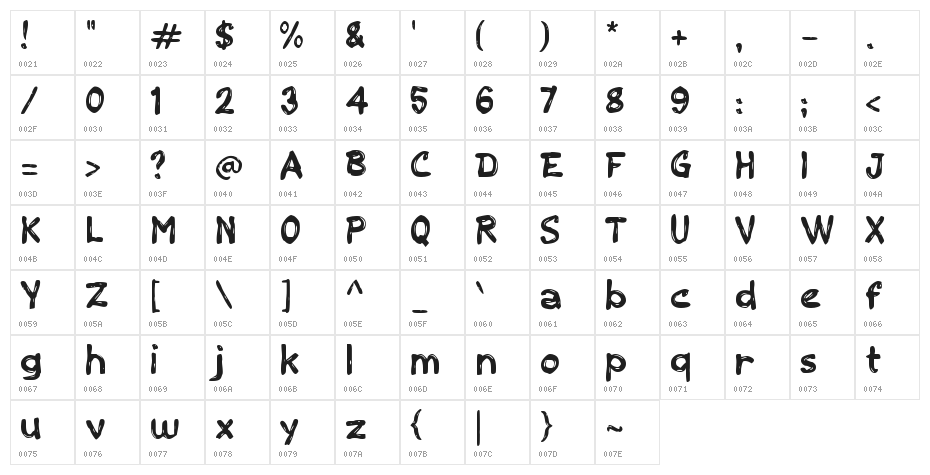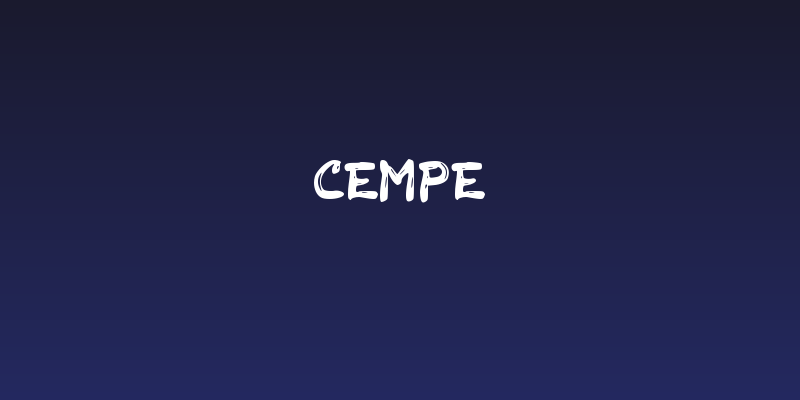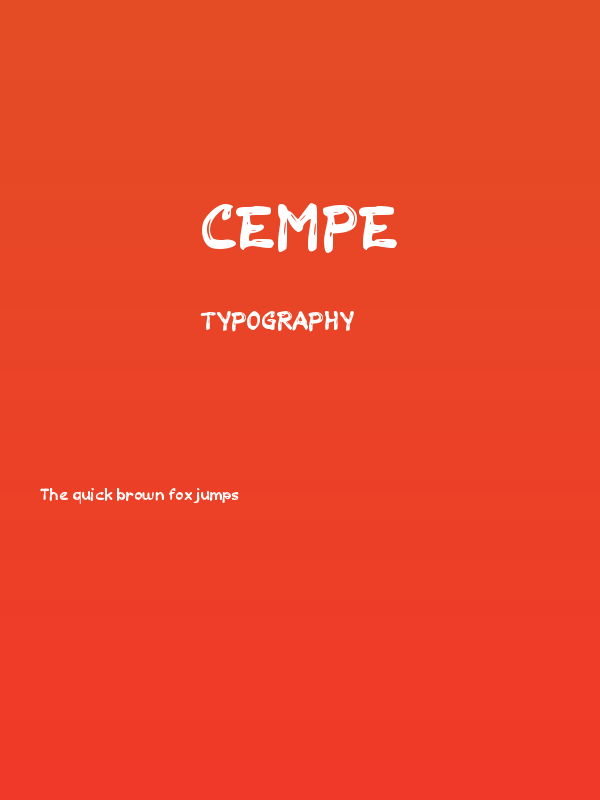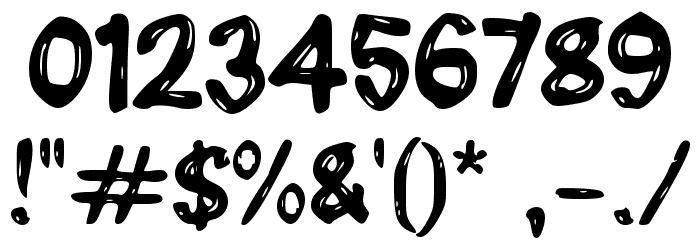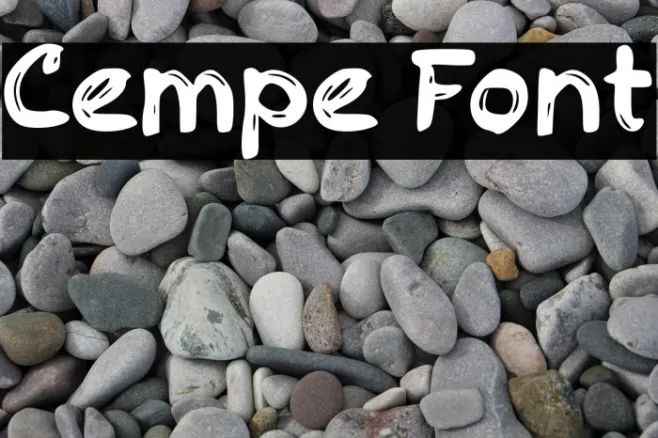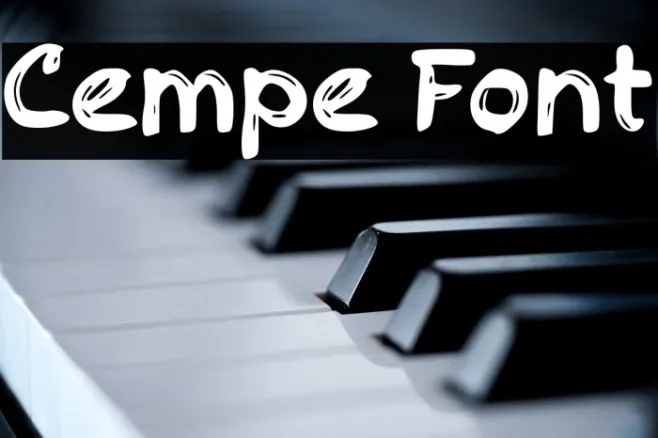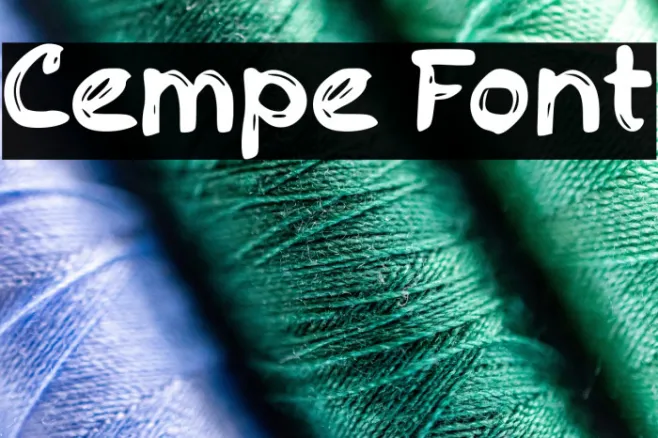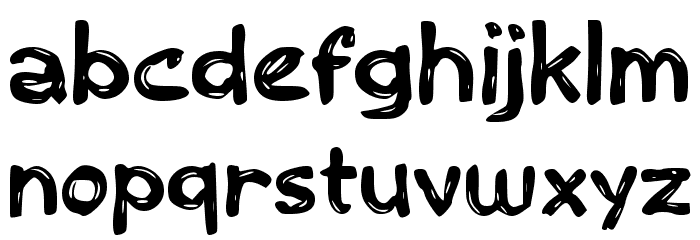
Cempe Font
Cempe Description
This font features a bold and playful handwritten style, characterized by its thick strokes and slightly irregular shapes. The letters have a dynamic and energetic appearance, with a casual and informal feel. The uppercase and lowercase letters maintain a consistent style, while the numbers and special characters complement the overall aesthetic. The font's design is reminiscent of hand-drawn lettering, making it suitable for projects that require a personal touch or a creative flair.
CEMPE UPPERCASE
CEMPE LOWERCASE
CEMPE OTHER CHARS
| Overall Style | Playful, Casual |